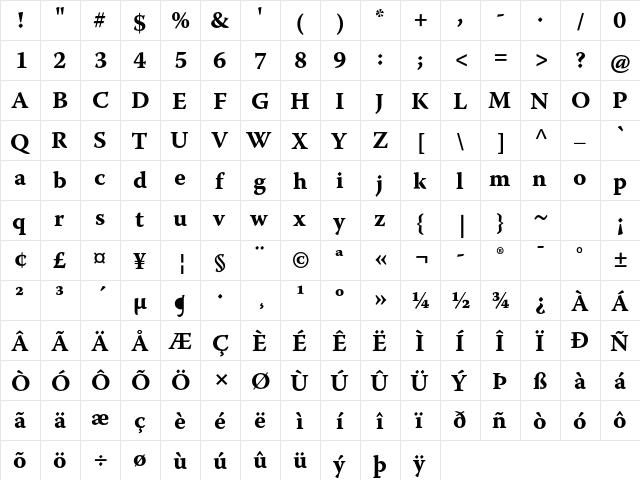
Warnock Pro Bold Caption
Bold Caption ·  Robert Slimbach ·
DesignerRobert Slimbach
Design Context for Warnock Pro Typeface
Warnock Pro offers clean, dependable letterforms without strong stylistic allegiance, making it a practical choice for designers who need flexibility. The heavy weight commands attention and anchors typographic hierarchies.